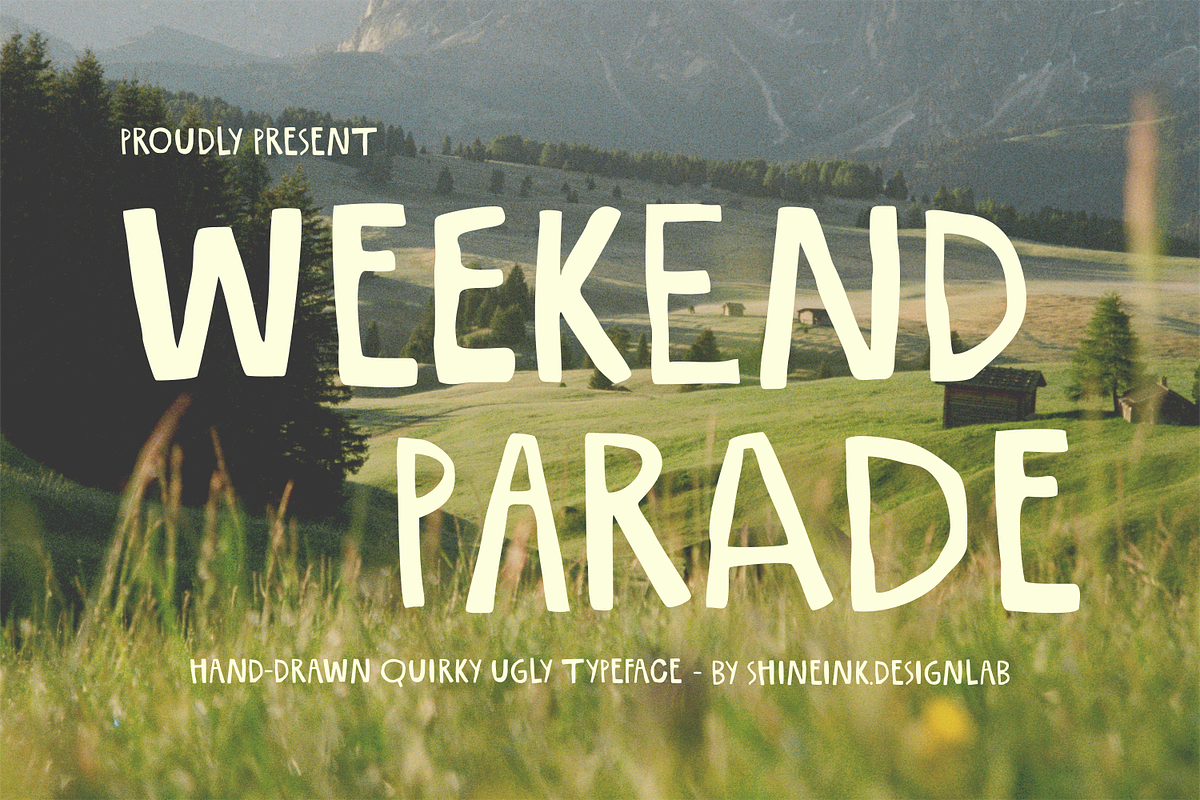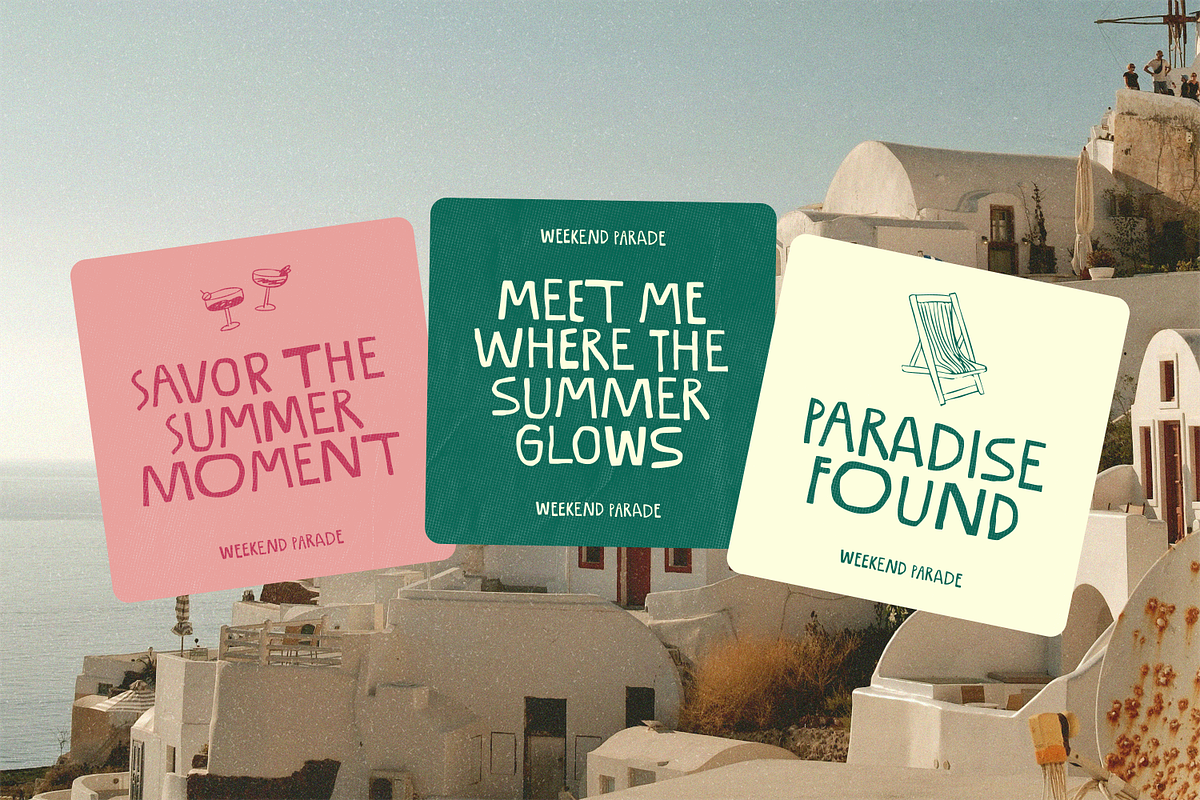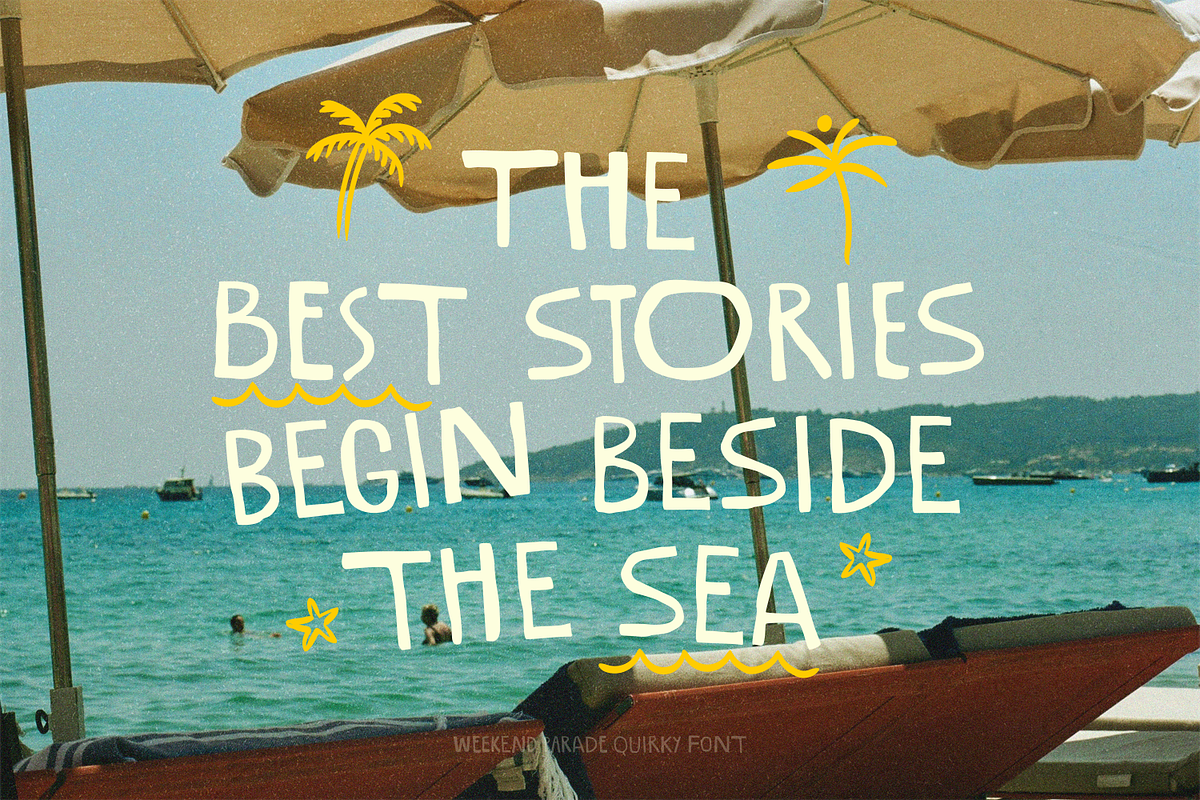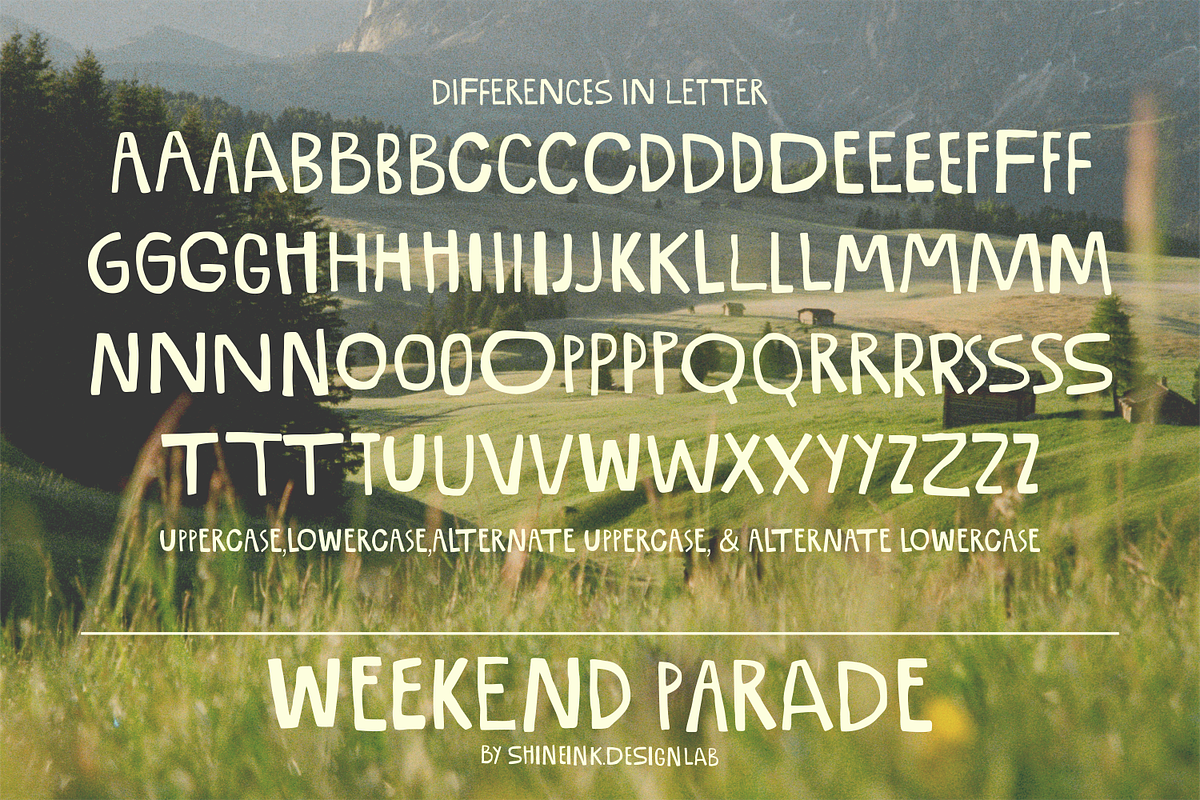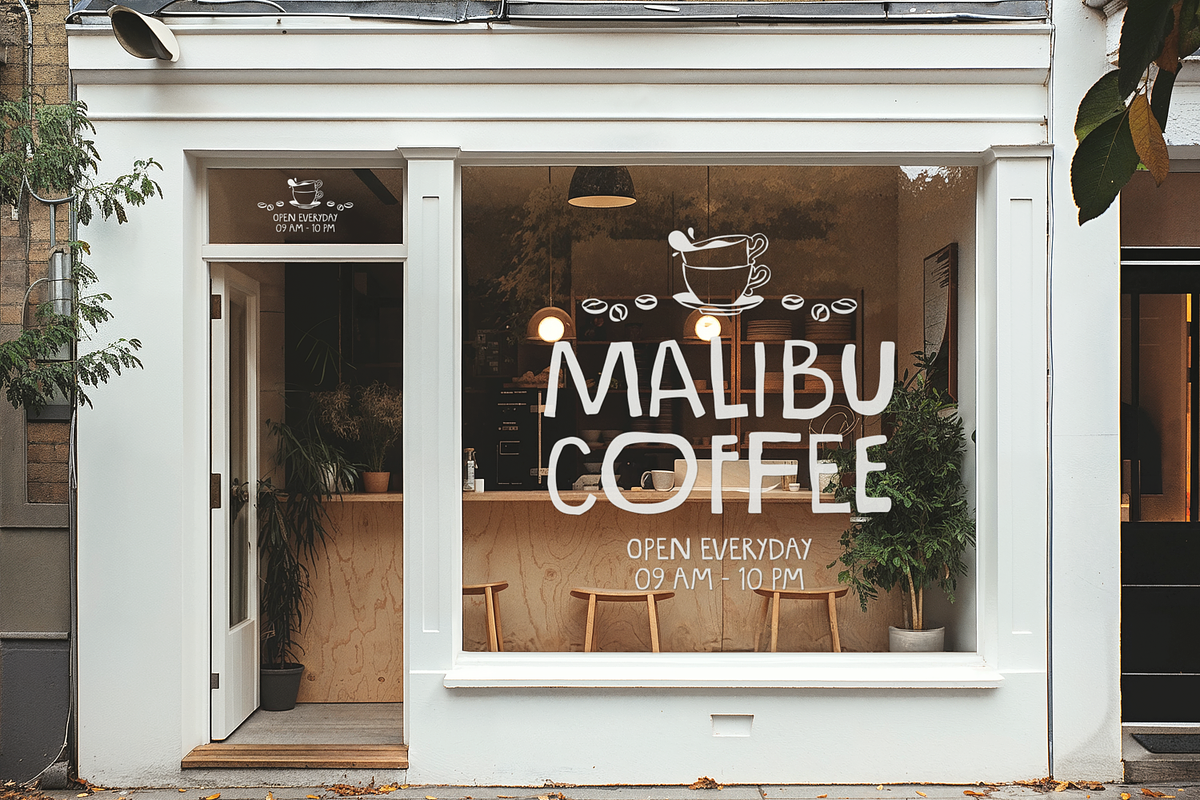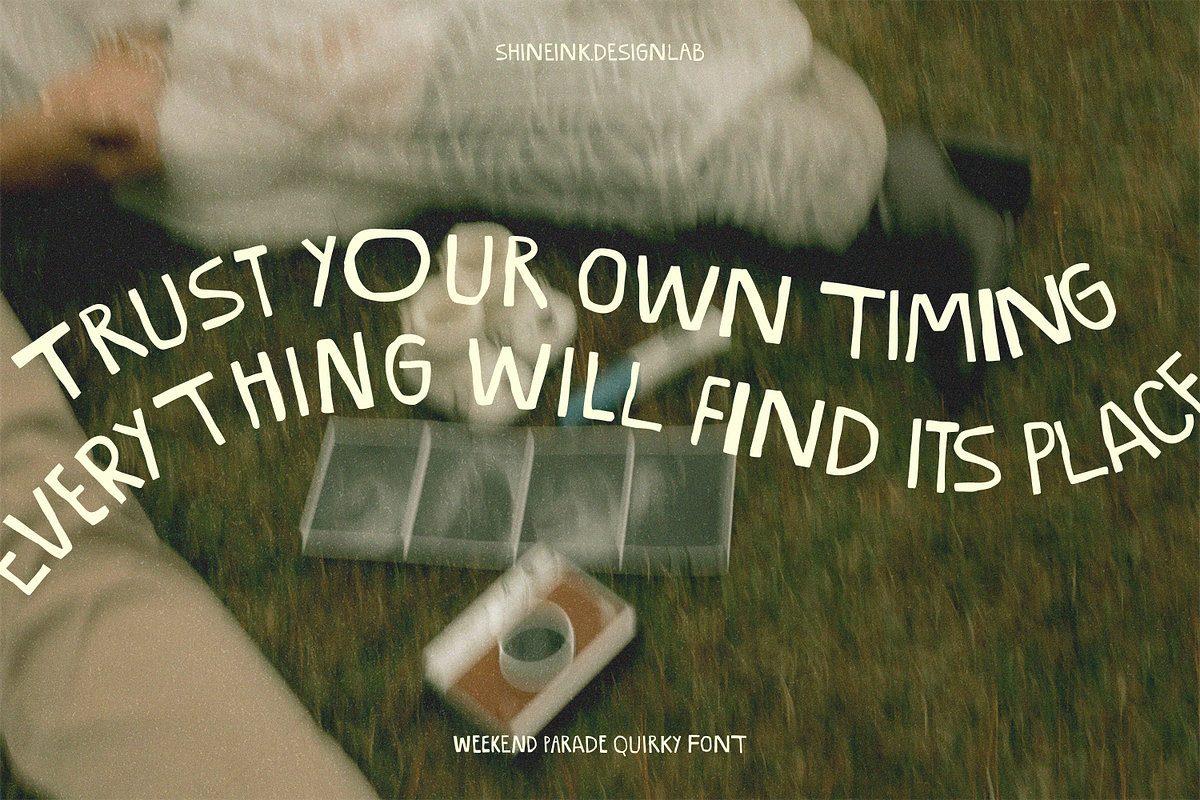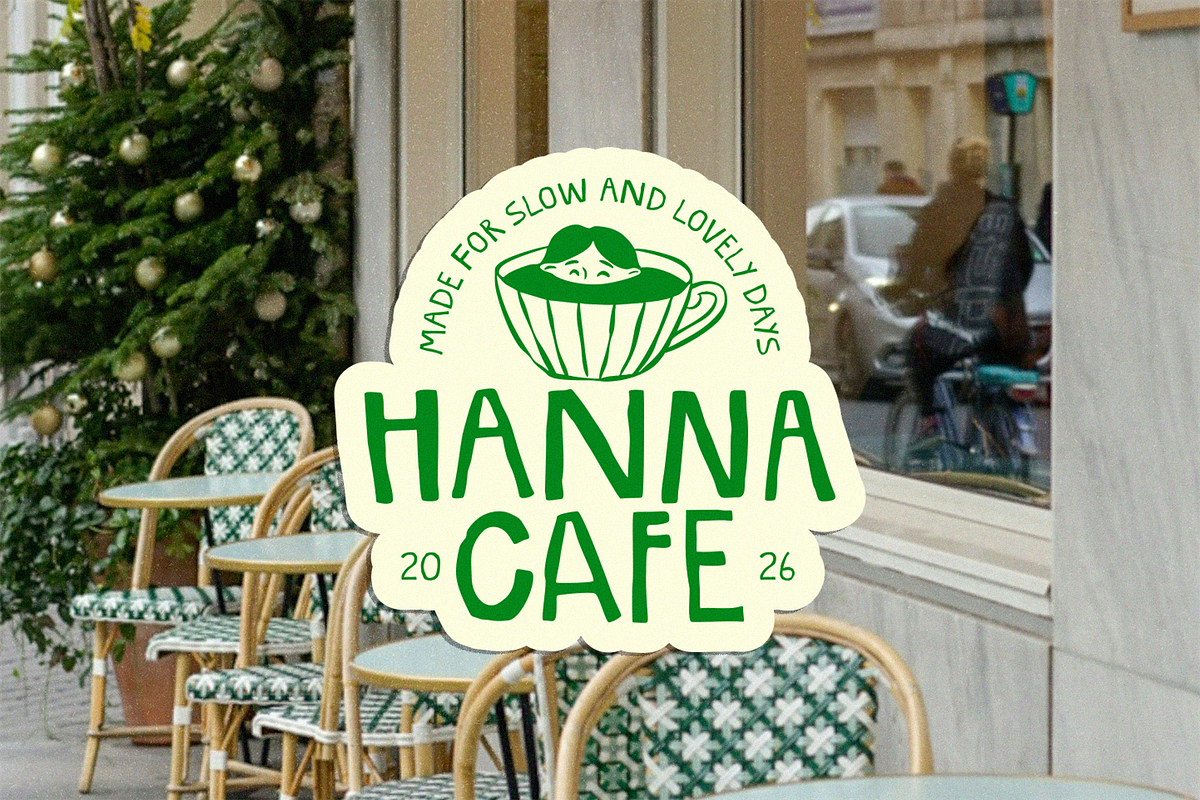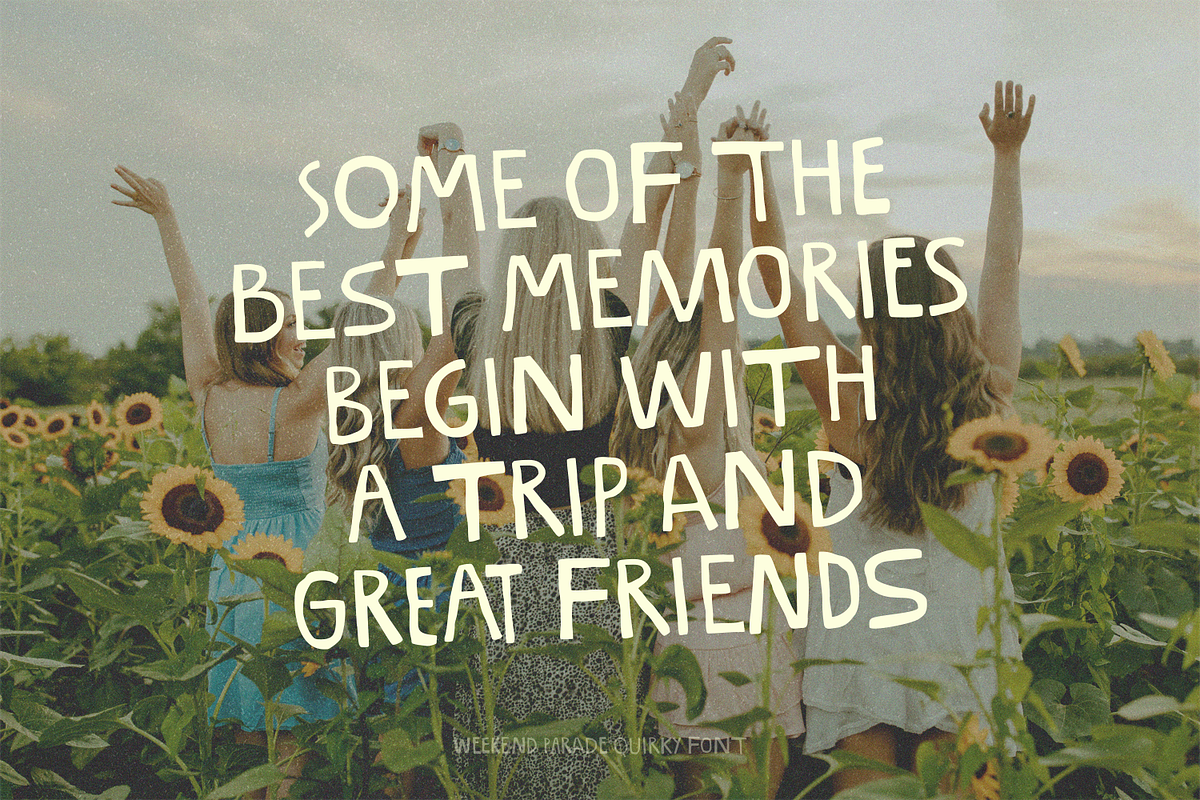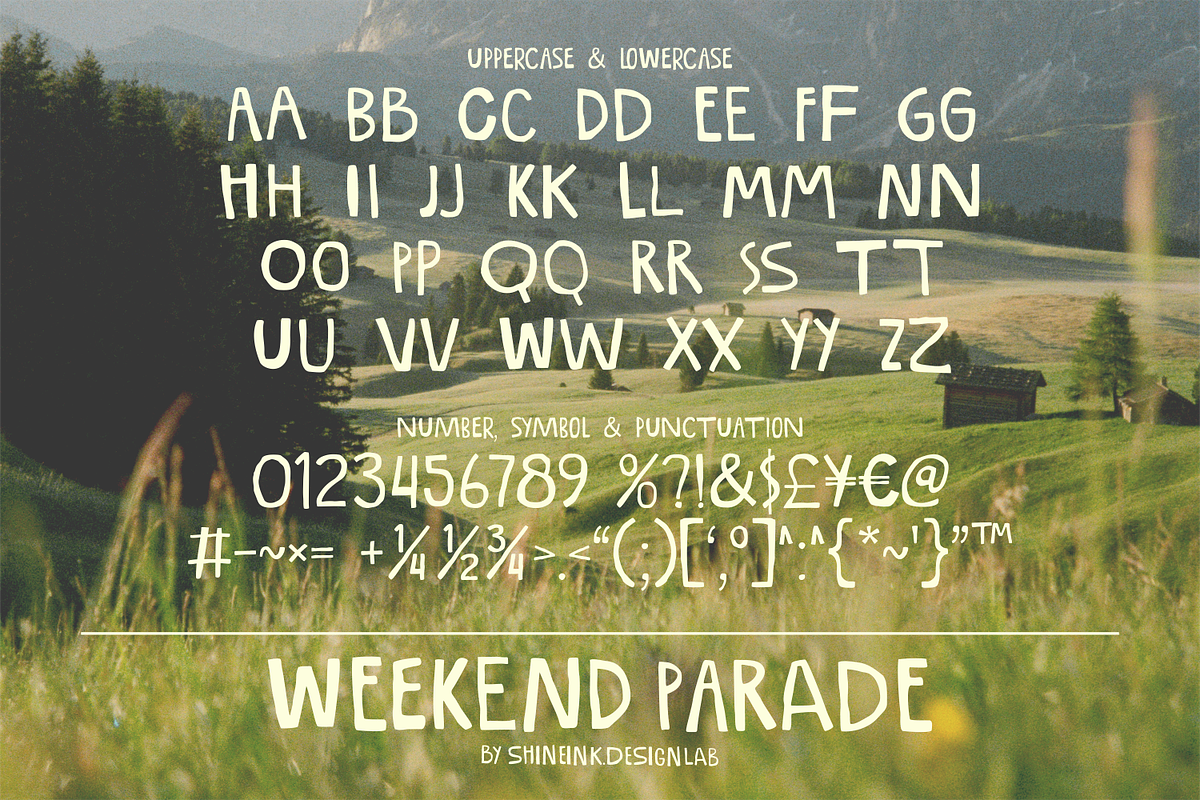
Weekend Parade – Quirky Font
Weekend Parade is a playful hand-drawn display font that celebrates the charm of imperfection. Featuring uneven letterforms, organic strokes, and a delightfully quirky personality, it brings a warm, handcrafted feel to any creative project.
Designed to stand out without feeling overdesigned, this typeface is perfect for bold branding, packaging, logos, posters, editorial headlines, merchandise, social media, greeting cards, and everything in between. Its naturally imperfect shapes create a friendly, authentic look that feels expressive and full of character.
1. Lowercase and Uppercase
2. Numerals & Punctuation
3. Accented characters
4. Multiple Languages Supported
6. Unique Alternate Uppercase & Lowercase
If you're looking for a display font that's bold, quirky, and genuinely full of personality, Weekend Parade is ready to make your designs feel more human, playful, and unforgettable.